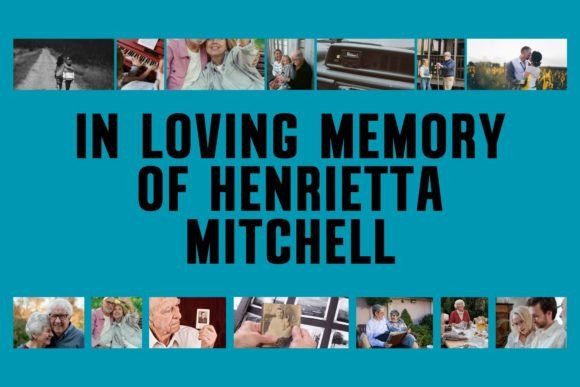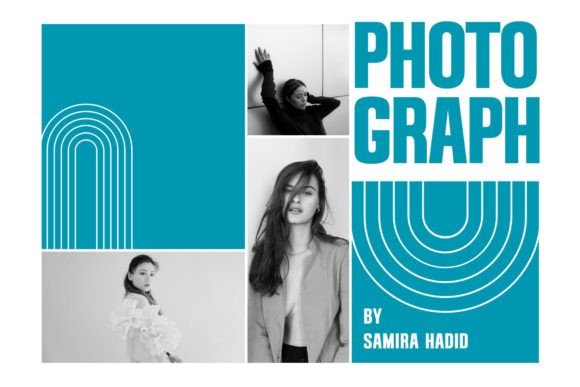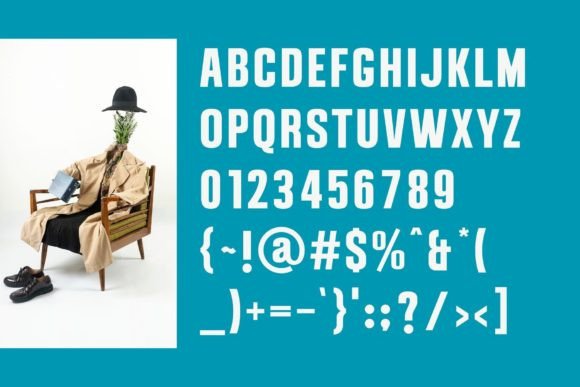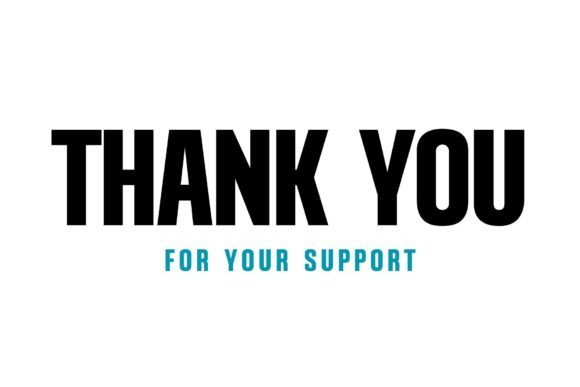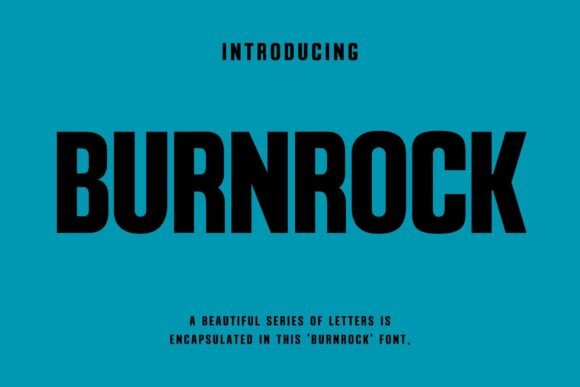
Introducing Burnrock Font: The Ultimate Choice for Modern Designers
In the world of typography, fonts play a crucial role in conveying messages, expressing emotions, and creating visual identities. With the ever-growing demand for unique and versatile fonts, Burnrock Font has emerged as a game-changer for designers and crafters alike. This futuristic font is engineered to meet the diverse needs of modern designers, offering a wide range of applications across various mediums.
What Makes Burnrock Font Stand Out?
Burnrock Font boasts a distinctive and futuristic design that sets it apart from traditional fonts. Its sleek lines, geometric shapes, and carefully crafted letterforms create a visually stunning effect that captures attention and communicates effectively. The font’s unique characteristics make it an excellent choice for projects that require a high level of readability and aesthetic appeal.
Versatility at Its Best: Applications of Burnrock Font
Burnrock Font is incredibly versatile, making it suitable for a wide range of design projects, including:
• Branding Projects: Establish a strong visual identity with Burnrock Font, perfect for logos, business cards, and company profiles.
• Logos: Create memorable and impactful logos that leave a lasting impression on your audience.
• Wedding Designs: Add a touch of modern elegance to wedding invitations, stationery, and decorations.
• Social Media Posts: Elevate your social media presence with eye-catching posts and stories that showcase your brand’s personality.
• Advertisements: Grab attention and drive engagement with Burnrock Font’s bold and futuristic style.
• Product Packaging: Stand out on store shelves with packaging designs that incorporate Burnrock Font’s unique aesthetic.
• Product Designs: Infuse your products with a modern and sophisticated look that resonates with your target audience.
• Labels: Create informative and visually appealing labels that enhance your product’s overall appearance.
• Photography: Add a professional touch to your photographs with Burnrock Font’s sleek and modern watermarks.
• Invitations: Design stunning invitations for special occasions, such as birthdays, anniversaries, and graduations.
• Stationery: Elevate your brand’s stationery with Burnrock Font’s elegant and sophisticated style.
Why Choose Burnrock Font?
Burnrock Font offers several benefits that make it an attractive choice for designers and crafters:
• Readability: Burnrock Font is designed to provide a high level of readability, ensuring that your message is conveyed effectively across various mediums.
• Uniqueness: Its futuristic design sets it apart from traditional fonts, allowing you to create distinctive and memorable visual identities.
• Versatility: Burnrock Font can be used across a wide range of design projects, making it a valuable addition to your font library.
• Modern Aesthetic: Its sleek and geometric design makes it perfect for modern designs that require a touch of sophistication.
Tips for Using Burnrock Font Effectively
To get the most out of Burnrock Font, consider the following tips:
• Pair it with complementary fonts: Combine Burnrock Font with other fonts to create visually appealing typography.
• Experiment with colors: Try different color schemes to find the perfect match for your design.
• Play with sizes: Use Burnrock Font in various sizes to create visual hierarchy and emphasis.
• Keep it simple: Avoid over-accessorizing your design, and let Burnrock Font’s unique style shine.
Font Name Burnrock Font
Author Font Kingdom
Burnrock Font is a game-changing typography solution for designers and crafters seeking a unique and versatile font for their projects. Its futuristic design, high readability, and wide range of applications make it an excellent choice for various mediums. By incorporating Burnrock Font into your design workflow, you’ll be able to create stunning visual identities, captivating advertisements, and memorable branding projects that leave a lasting impression on your audience.